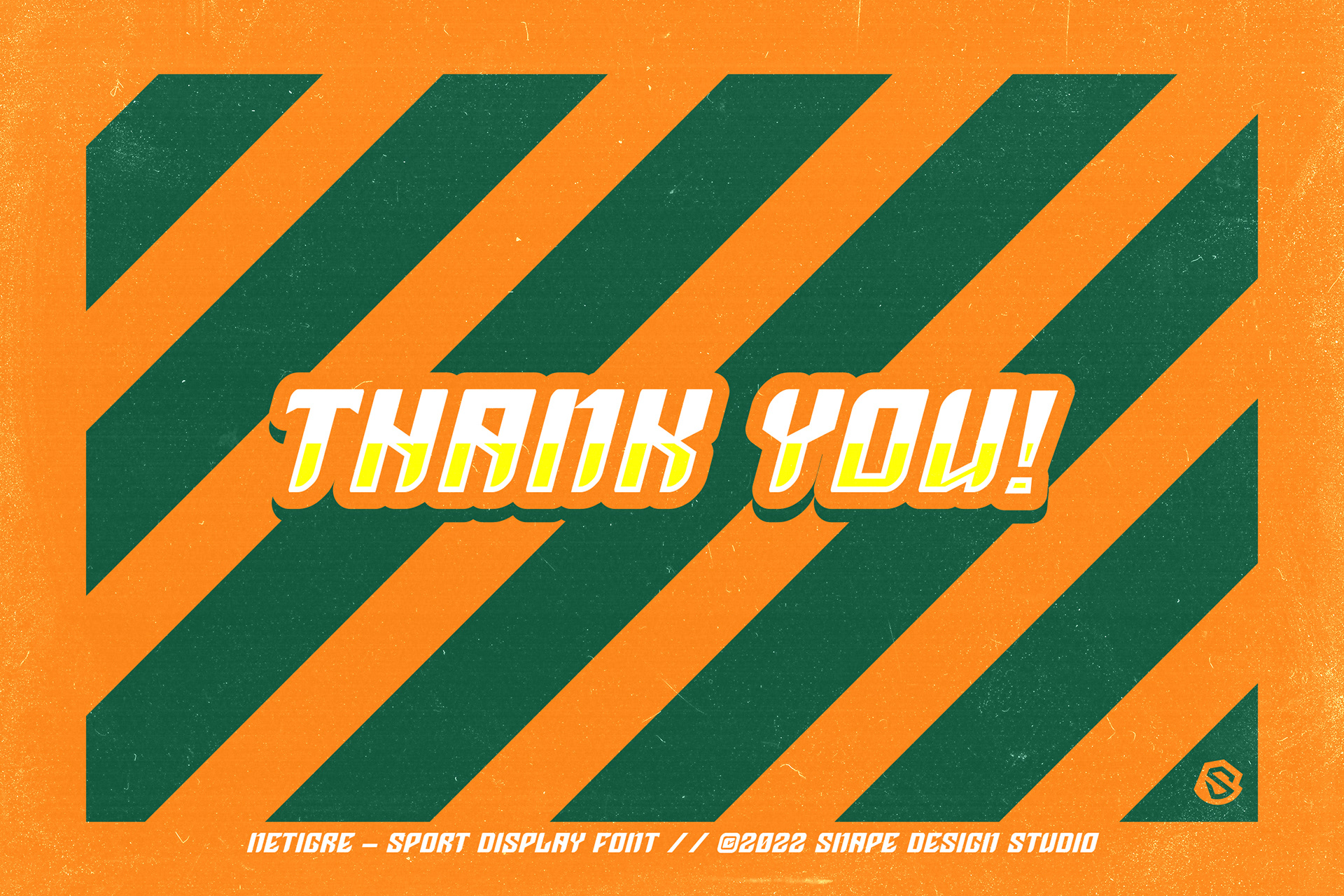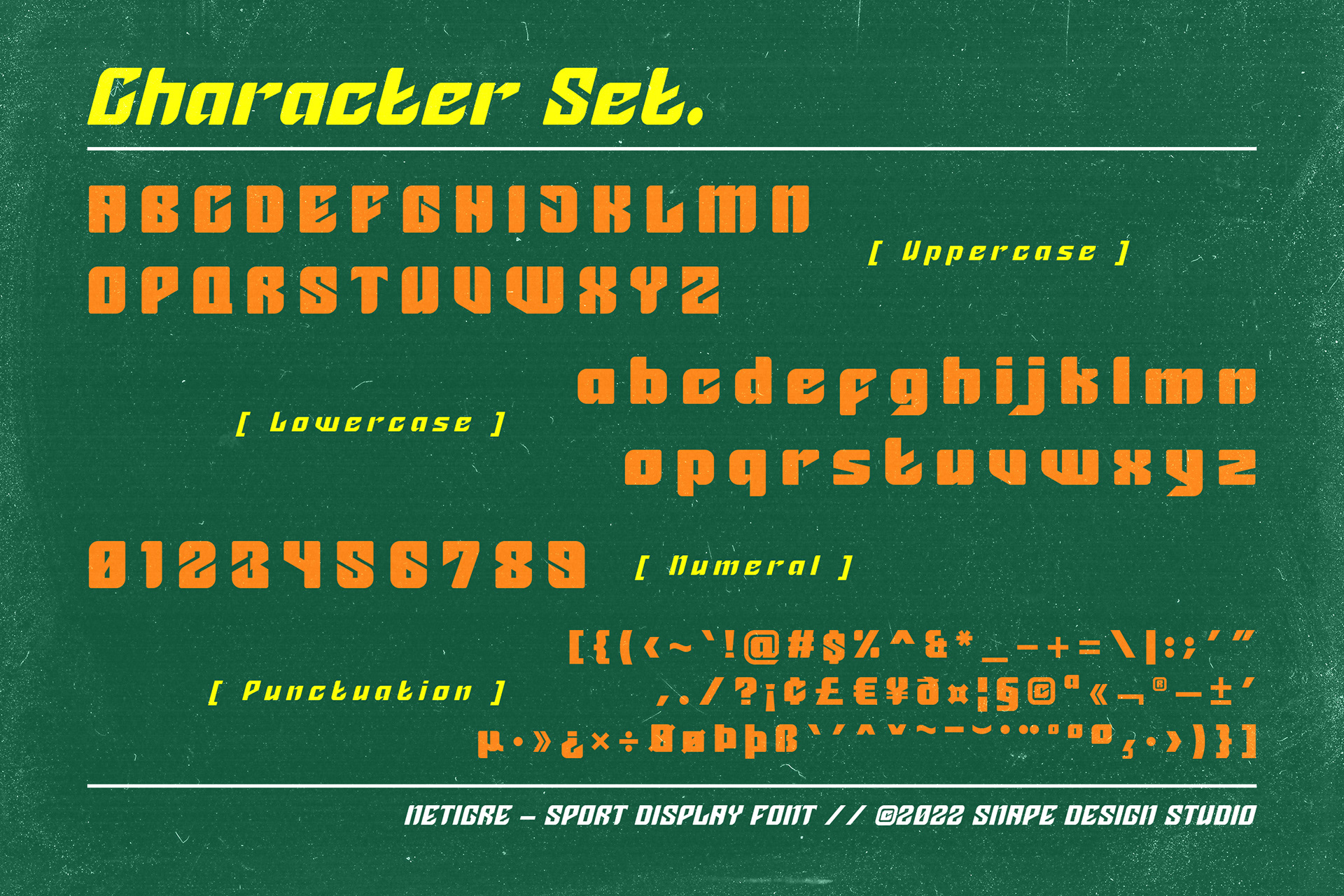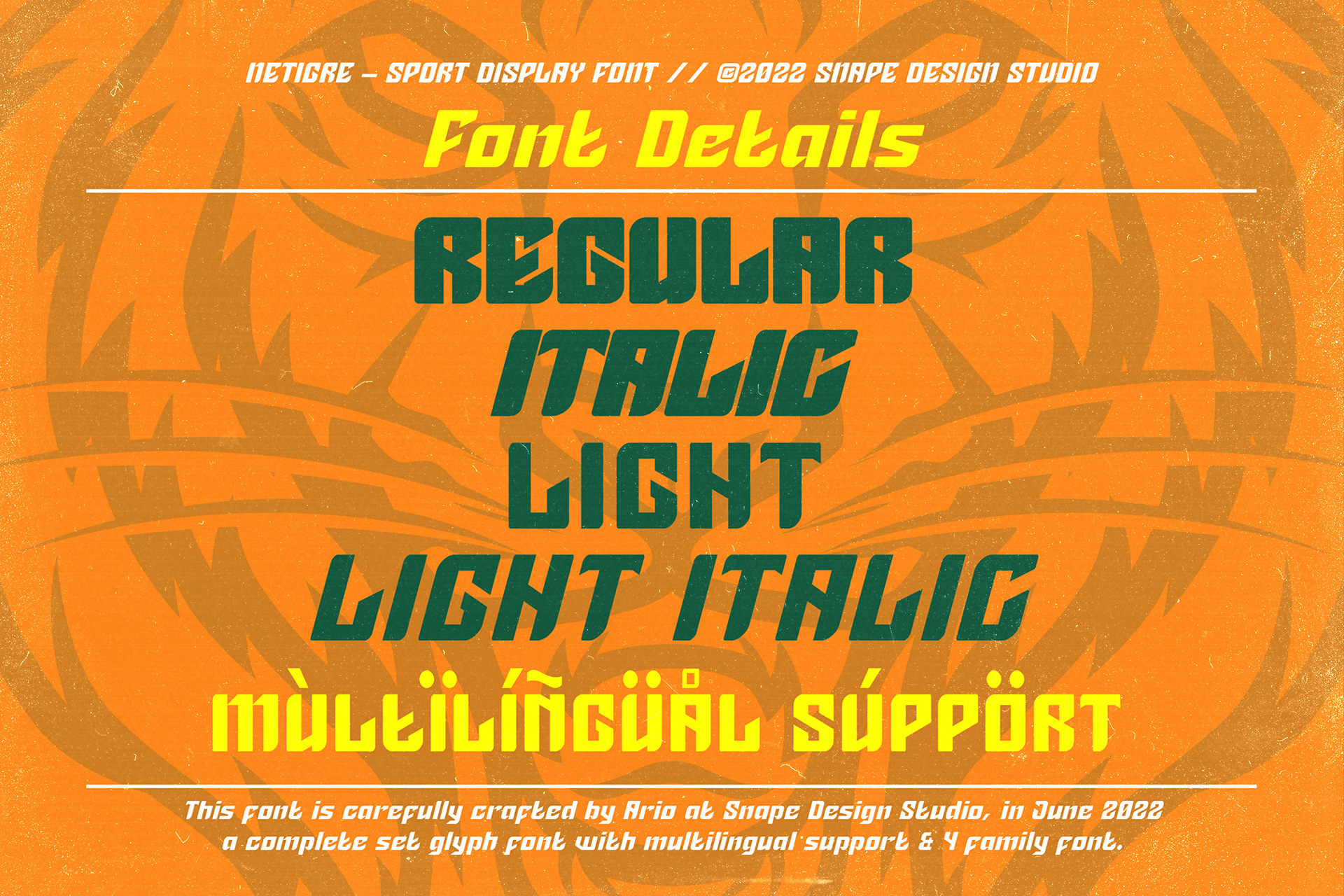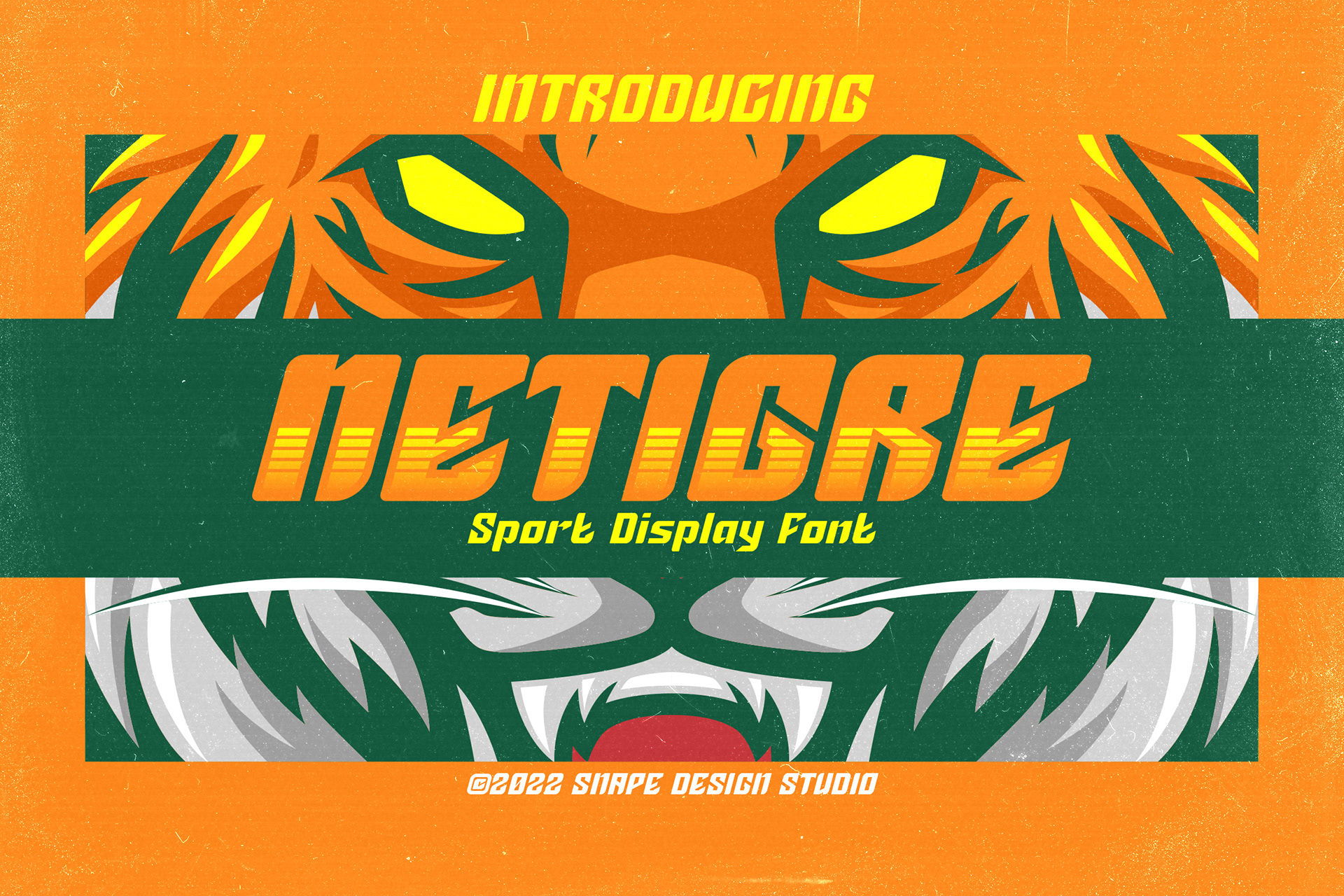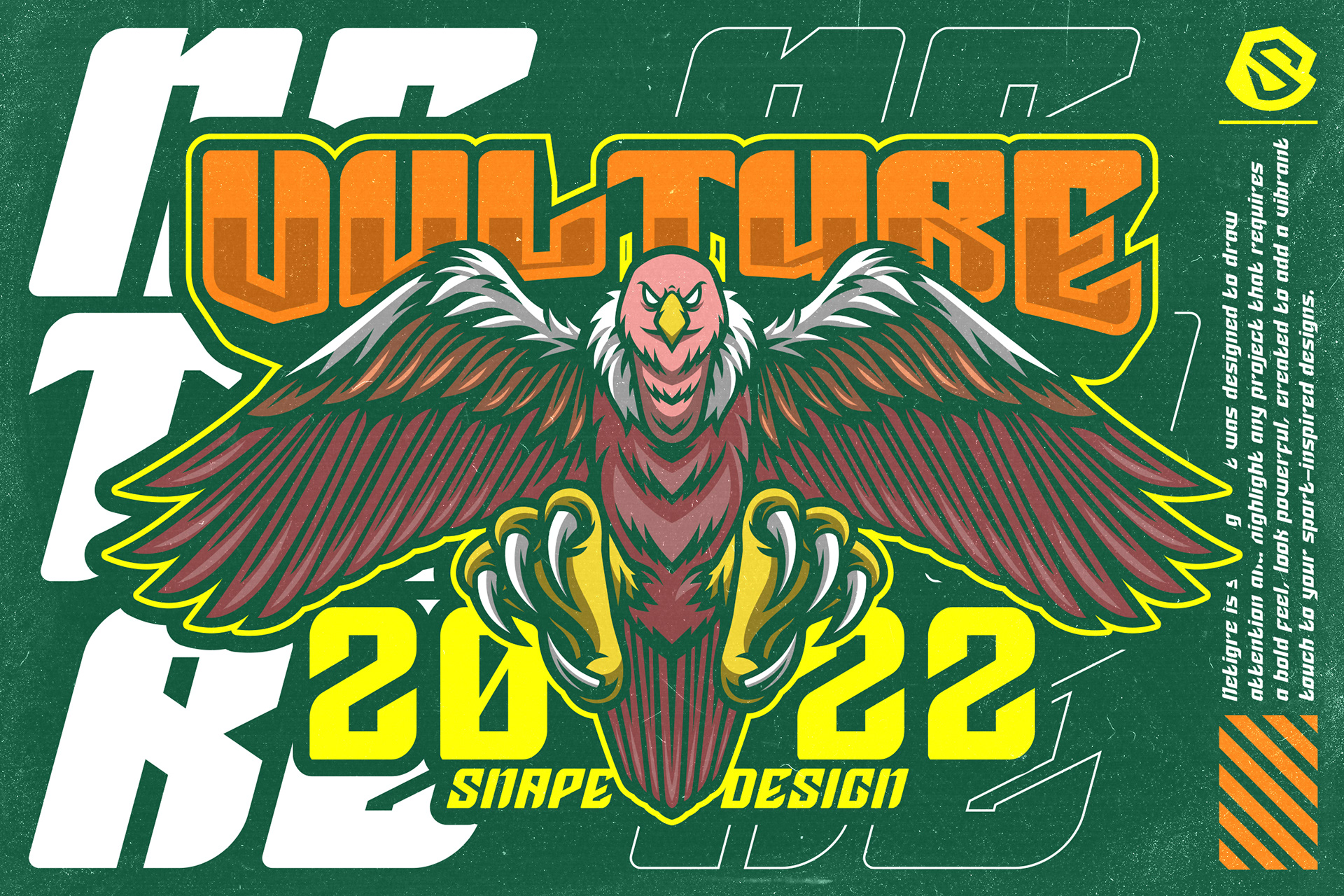
ABOUT THE FONT
Netigre is strong font was designed to draw attention and highlight any project that requires a bold feel, look powerful, created to add a vibrant touch to your sport-inspired designs. Suitable for sport design, team, jersey, league, movie, documenter, film, logo, poster, game, book cover, headlines, title and many more projects. Add this font to your creative ideas and notice how it will make them stand out!
Netigre - Sport Display Font design by Ario Sabrang Damar publish under Snape Design Studio